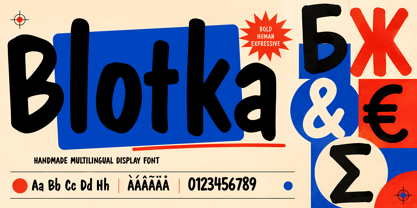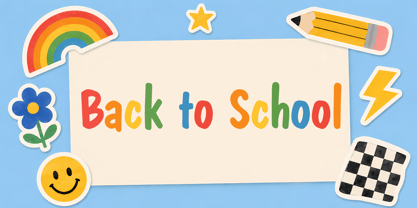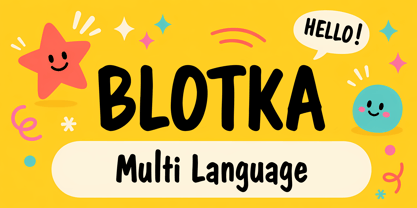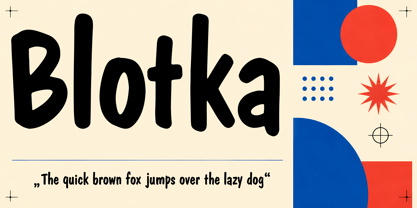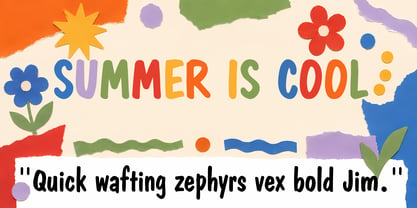
BLOTKA
La familia tipográfica BLOTKA fue diseñada por Viktor Makovkin y publicada por Makovkin Type. BLOTKA contiene 1 estilos. Más información sobre esta familia
Blotka is a bold hand-drawn display typeface with a friendly personality and naturally irregular rhythm. Its rounded strokes and playful shapes bring warmth and spontaneity to every composition while remaining clear and easy to read.
Designed for expressive headlines, Blotka works especially well in children’s books, packaging, posters, branding, social media, editorial layouts, merchandise, and playful visual identities. Each character feels handmade, giving designs an approachable look without sacrificing impact.
The character set includes uppercase and lowercase Latin and Cyrillic alphabets, multilingual characters, numerals, punctuation, currency symbols, mathematical signs, and a wide selection of diacritics.
Use Blotka when your project needs typography that feels bold, human, cheerful, and a little imperfect.